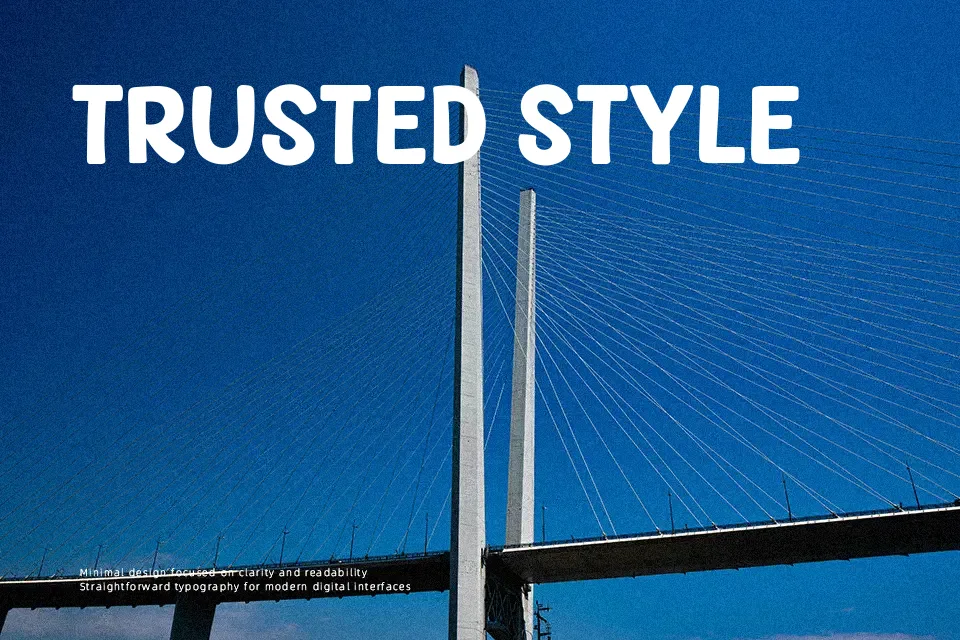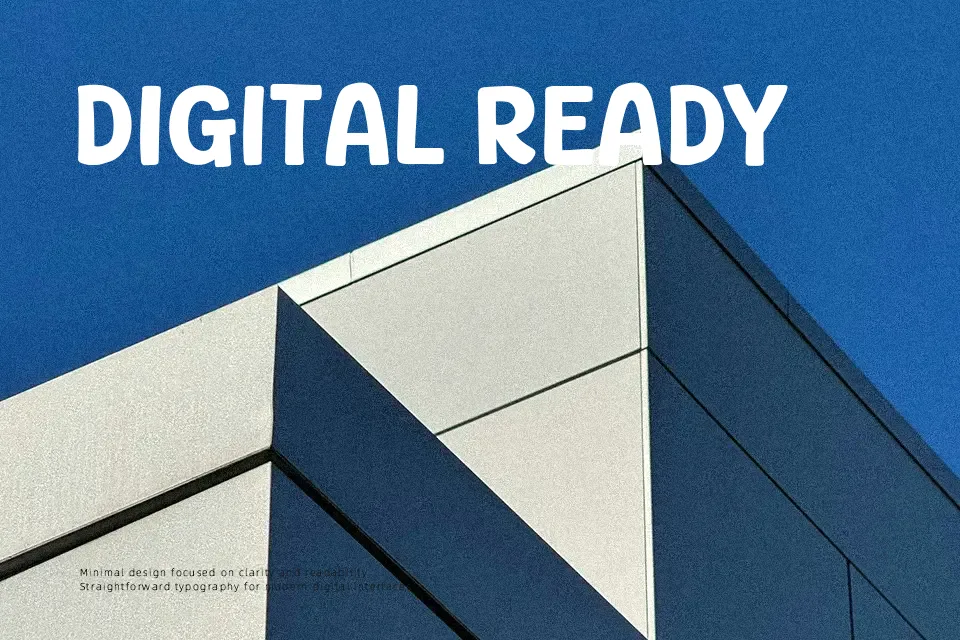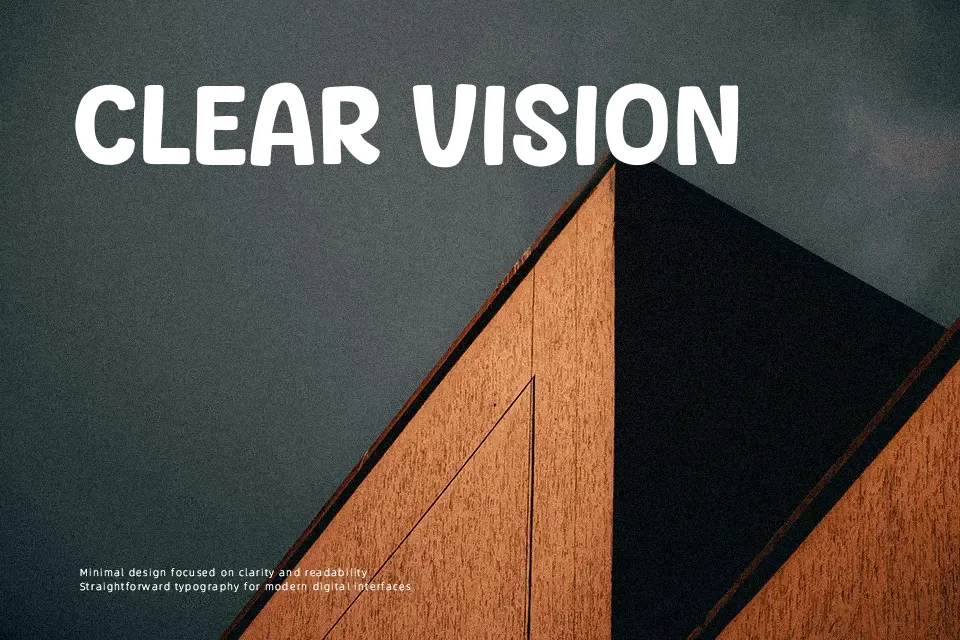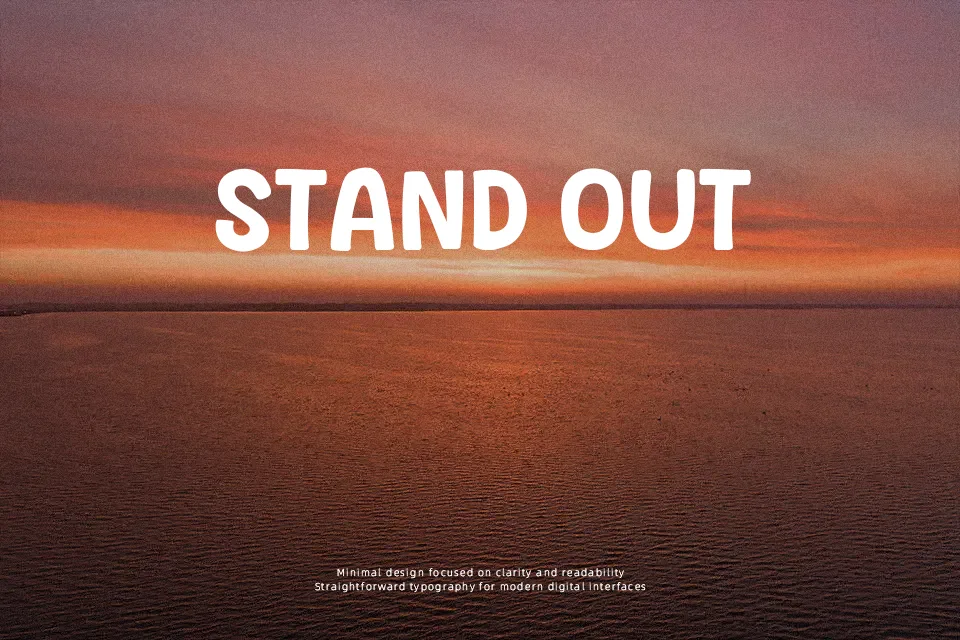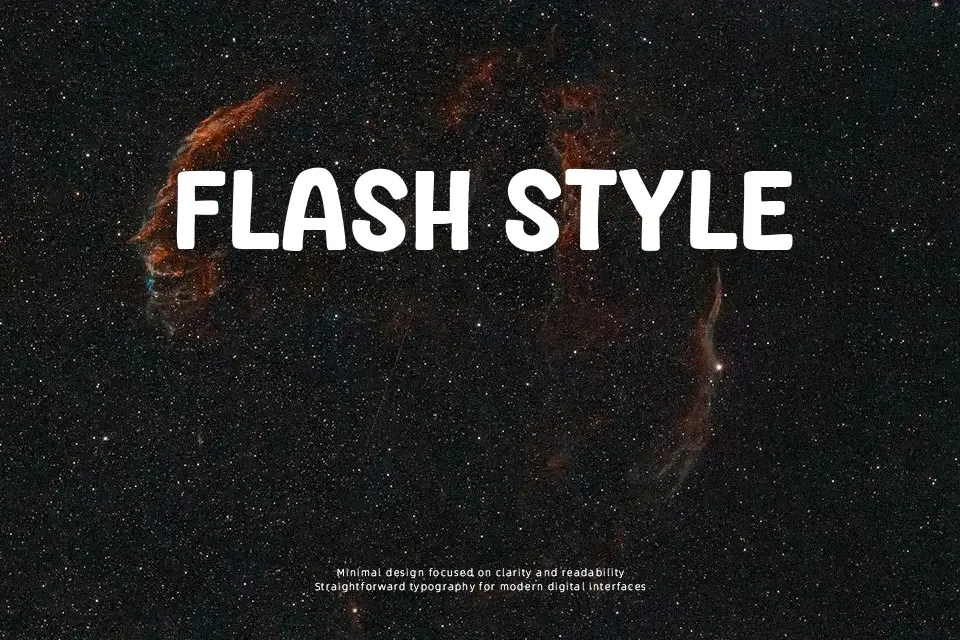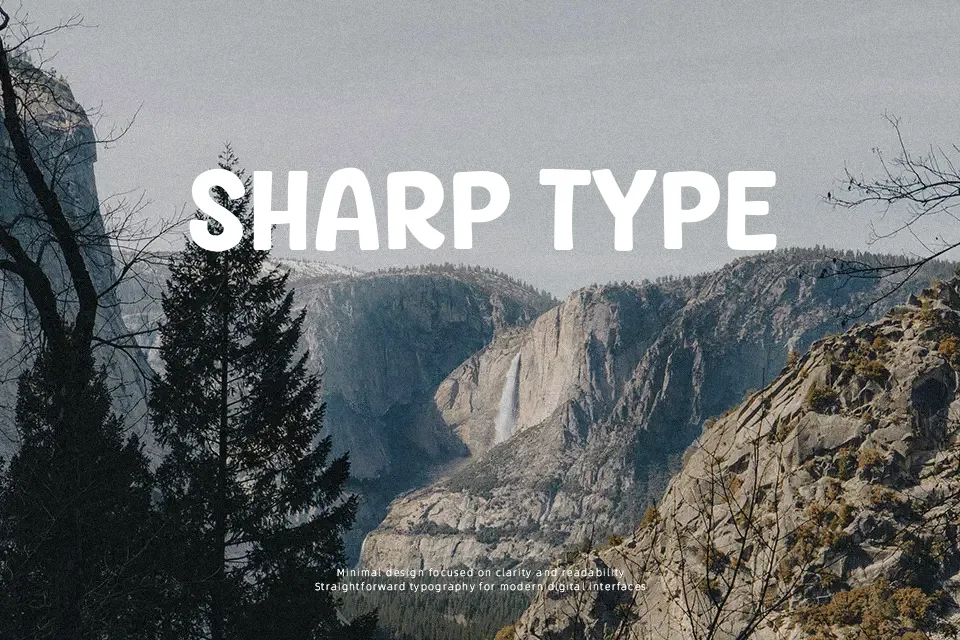
Dobidoo Font
Designed by Khurasan
Dobidoo Font has a heavy, bubbly structure with rounded terminals, thick strokes, and compact spacing that makes words feel loud and upbeat. The letters lean into a cartoon look rather than a polished editorial one, so it reads best at medium to large sizes where the playful shapes can do the work. It fits children’s event posters, sticker-style branding, candy or snack packaging, and social media graphics that need a casual tone. I would use it when the message should feel friendly and animated, especially for short headlines. I would avoid it for body copy, luxury branding, or anything that depends on a restrained, serious tone.
kids posters,snack packaging,playful social graphics,short cartoon headlines
body text,luxury branding,formal invitations,serious corporate layouts
Perfect for branding, headline, and packaging, with a cute and cartoon style.